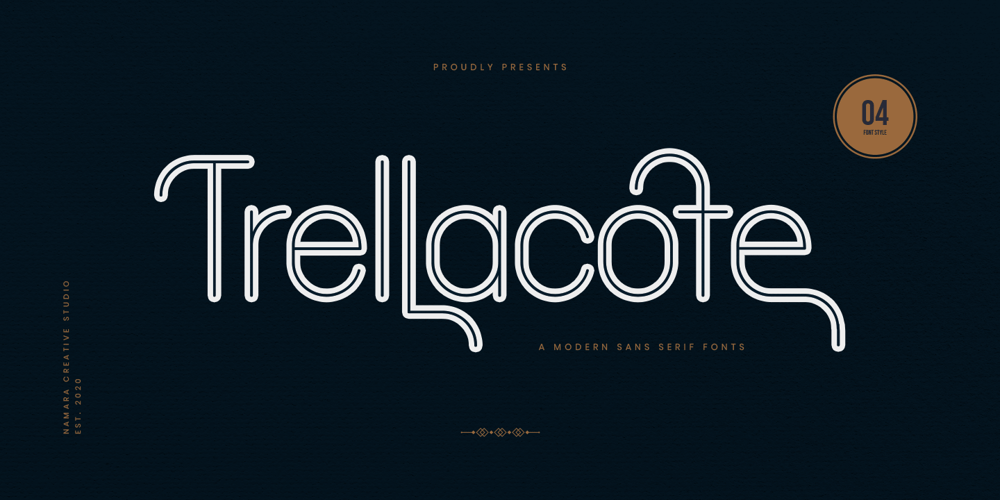
Trellacote Font Family was designed by Toni Setiawan and published by Namara Creative Studio. Trellacote contains 4 styles and family package options. Trellacote is modern sans serif font with 4 styles: Light, Light Italic, Regular and Italic. Trellacote comes with many variant alternates of glyphs, ligatures and special PUA characters. It’s perfect for posters, business cards, logos, social media, magazine covers and any project with suitable purpose.